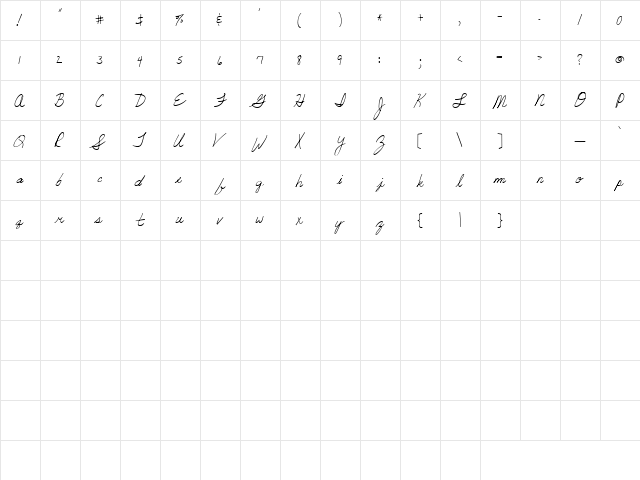
LD Fine Script 1 Regular Font Preview
LD Fine Script 1 Regular
Design Context for LD Fine Script 1 Typeface
LD Fine Script 1 brings a calligraphic fluidity to the page — its connecting strokes and expressive curves give it an unmistakably human quality.